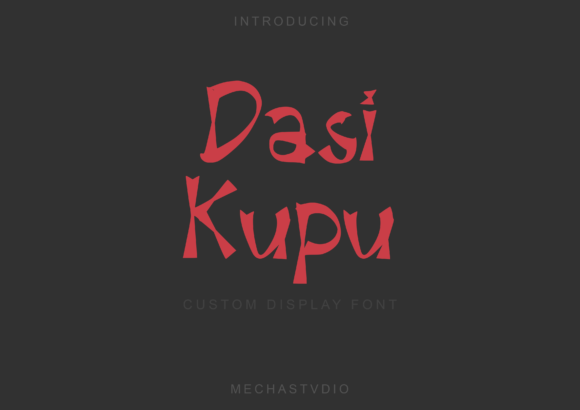
Journey into the world of typography with Dasi Kupu, a display font that's bursting with personality and charm. Crafted by the experts at MechaStudio, this font captivates with its bold strokes and captivating curves, leaving an unforgettable impression on your audience.
Express your individuality through logos, branding, and stationery that radiates confidence and uniqueness. Let Dasi Kupu elevate your poster designs, social media posts, and invitations with its remarkable presence. Dive into a world of endless possibilities, where creativity knows no bounds.
Dasi Kupu is more than just a font; it's an experience that ignites your imagination and propels your designs to new heights. Its versatility extends to a range of projects, from elegant wedding invitations to playful social media posts. Add it to your font library today, and embark on a creative journey like never before.
With Dasi Kupu by your side, you'll discover a font that's not just visually striking but also remarkably functional. Its crisp lines and legible characters ensure that your message is communicated with clarity and impact. Whether you're a seasoned designer or a creative entrepreneur, Dasi Kupu is the perfect tool to elevate your designs and make a lasting impression.